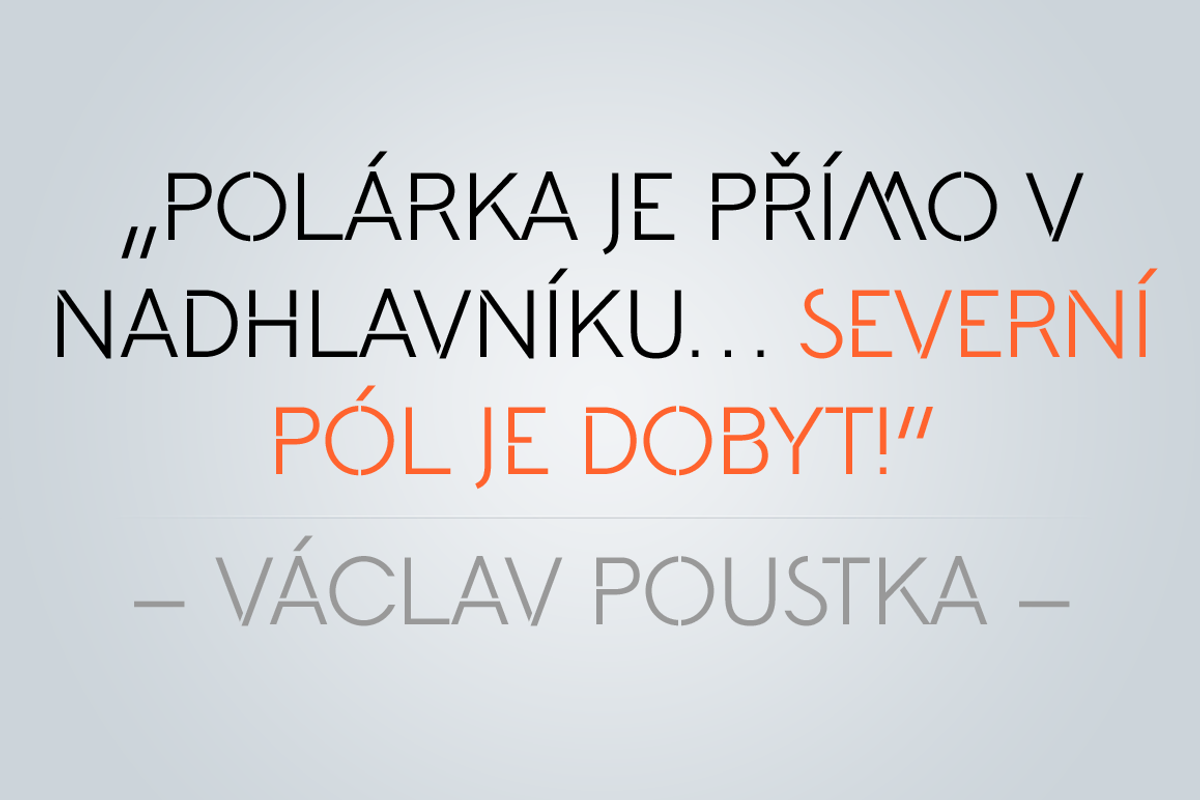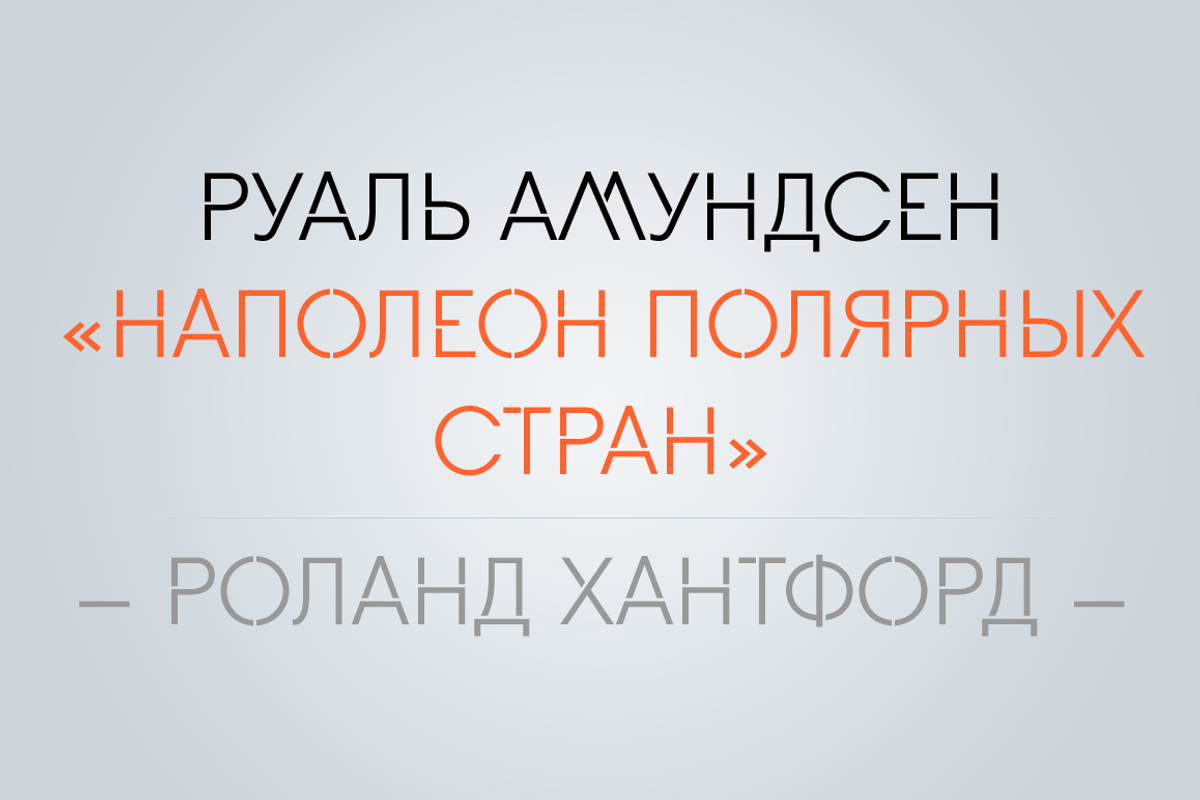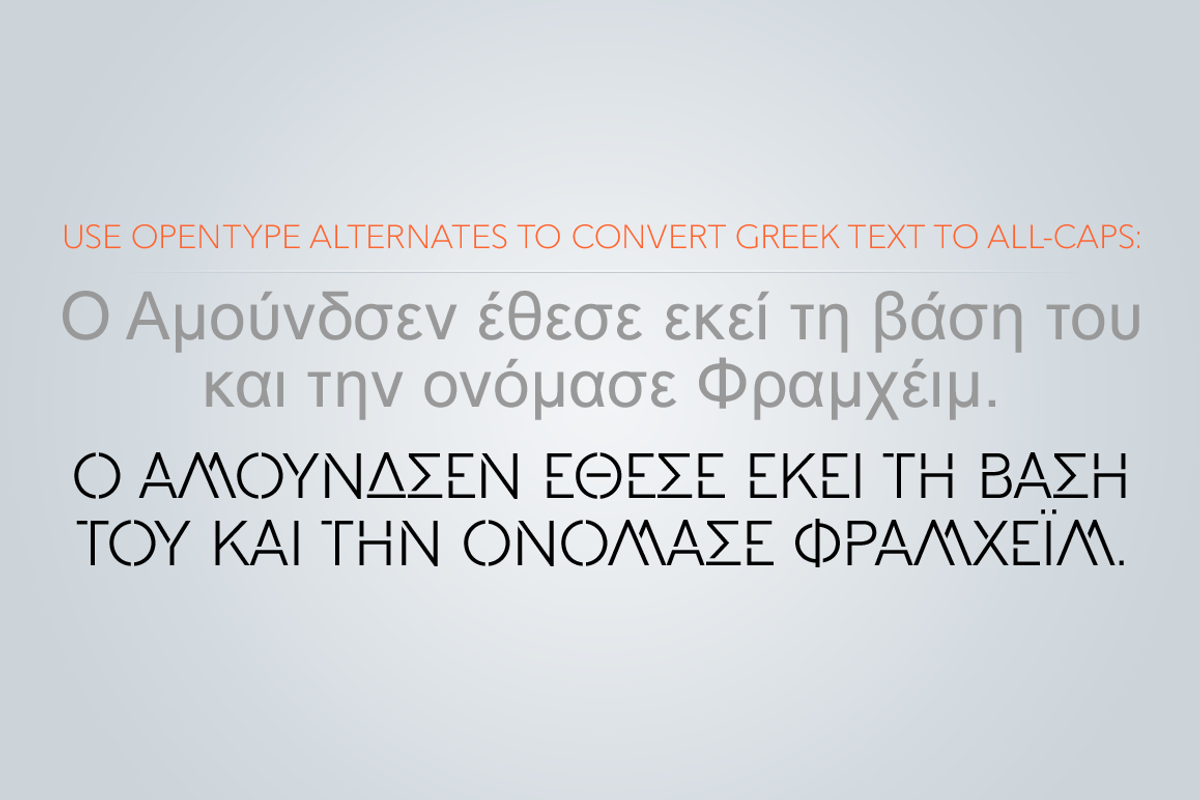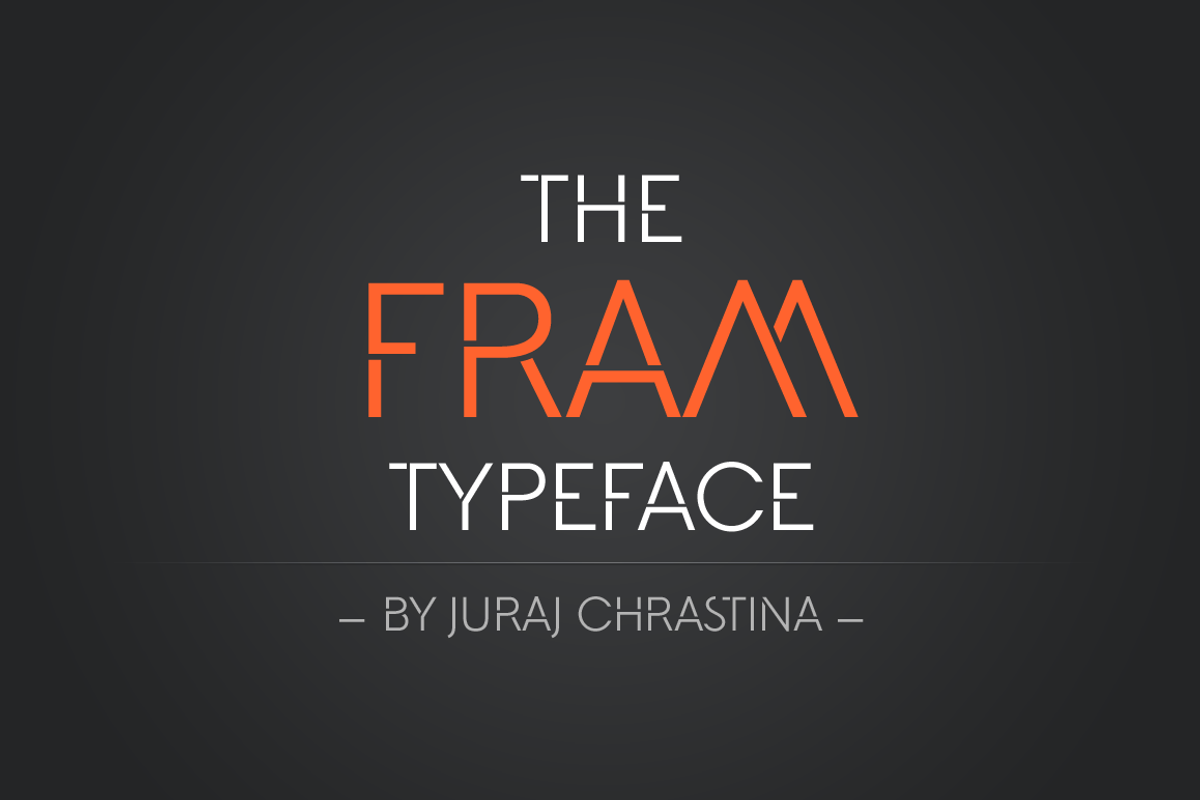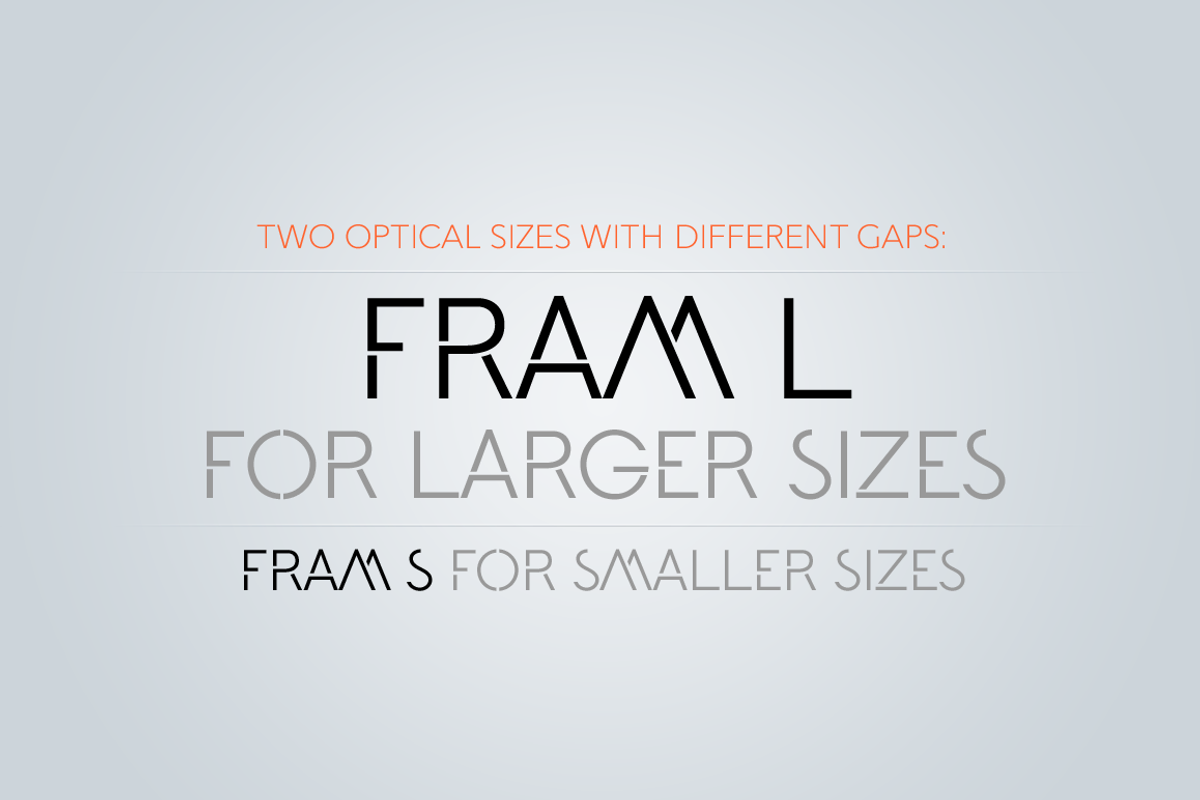
Fram Font Family
Fram Font Family by Juraj Chrastina is a font selected for branding, posters, packaging, typography.
- It comes with a fine-tuned kerning, its extensive character set ensures multiple languages coverage and the design is adapted to different r
- Fram is an uppercase stencil typeface.
Why Fram Font Family is worth a look
Fram Font Family by Juraj Chrastina fits naturally into Branding, posters, packaging, typography.